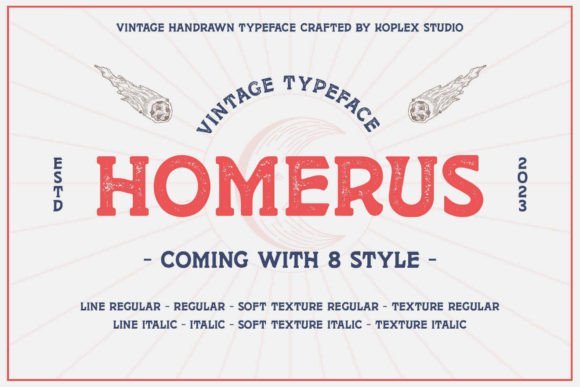
Elevate Your Designs with the Timeless Charm of the Homerus Font
As a designer, there’s nothing quite like the thrill of stumbling upon a vintage find that sparks inspiration for your next project. Maybe it’s a dusty old typewriter, a stack of yellowed letters, or a faded photograph – whatever it is, it’s that unique blend of nostalgia and character that sets your creative juices flowing.
Enter the Homerus Font, a meticulously crafted vintage font that embodies the essence of yesteryear’s artistic flair. This versatile typeface is designed to transport your designs back in time, with a range of styles to suit your creative needs. From its rustic, hand-drawn authenticity to its compatibility across various design applications, the Homerus Font is a valuable tool for designers looking to add a touch of vintage charm to their projects.
Whether you’re working on a retro-inspired poster, a quaint label, or a nostalgic branding project, the Homerus Font is sure to elevate your designs with its timeless charm.
Homerus Font Key Features
- Font Family: Homerus Font is a serif font family designed for both body text and display use.
- Character Set: Supports Latin and Cyrillic character sets, making it suitable for various languages.
- Unique Characteristics: Homerus Font features a unique blend of classic and modern design elements, including subtle serif variations and elegant letterforms.
Homerus Font Review
I recently had the chance to work with the Homerus font, and I must say it’s an interesting choice for designers. ✨ One thing that really works well is the unique blend of classic and modern elements. The font’s intricate details and bold lines give it a sense of sophistication, making it perfect for luxury or high-end branding projects.
Another advantage of Homerus is its wide range of weights and styles. This allows designers to experiment with different combinations to suit their specific needs. For instance, pairing the bold weight with a sans-serif font can create a striking contrast that grabs attention. ✨ Additionally, the font’s versatility makes it suitable for various mediums, from print to digital applications.
- ⚠️ Readability can be an issue when using the font in smaller sizes or for extended blocks of text. The intricate details may become overwhelming, making it difficult for readers to focus.
- ⚠️ Some users may find the font’s unique style to be too eccentric or distracting, which could be a concern for projects that require a more conservative approach.
Overall, the Homerus font is a great choice for designers who want to add a touch of elegance and sophistication to their projects. While it may have some limitations, its unique features and versatility make it a valuable addition to any designer’s toolkit.
Getting the Most Out of Homerus Font
For optimal results, use Homerus font in combination with bold or italic styles to create contrast and emphasis.
Homerus font is suitable for a wide range of applications, including:
– Headings and titles
– Logos and branding
– Infographics and charts
– Brochures and flyers
Alternatives to Homerus Font for Designers
Abril Fatface is an elegant and sophisticated serif font ideal for use in titles, headings, and body text where a classic, refined look is desired. It is particularly well-suited for use in high-end fashion, luxury branding, and traditional publishing.
Compared to Homerus Font, Abril Fatface has a more refined and delicate feel, making it a better choice for projects that require a touch of sophistication and elegance.